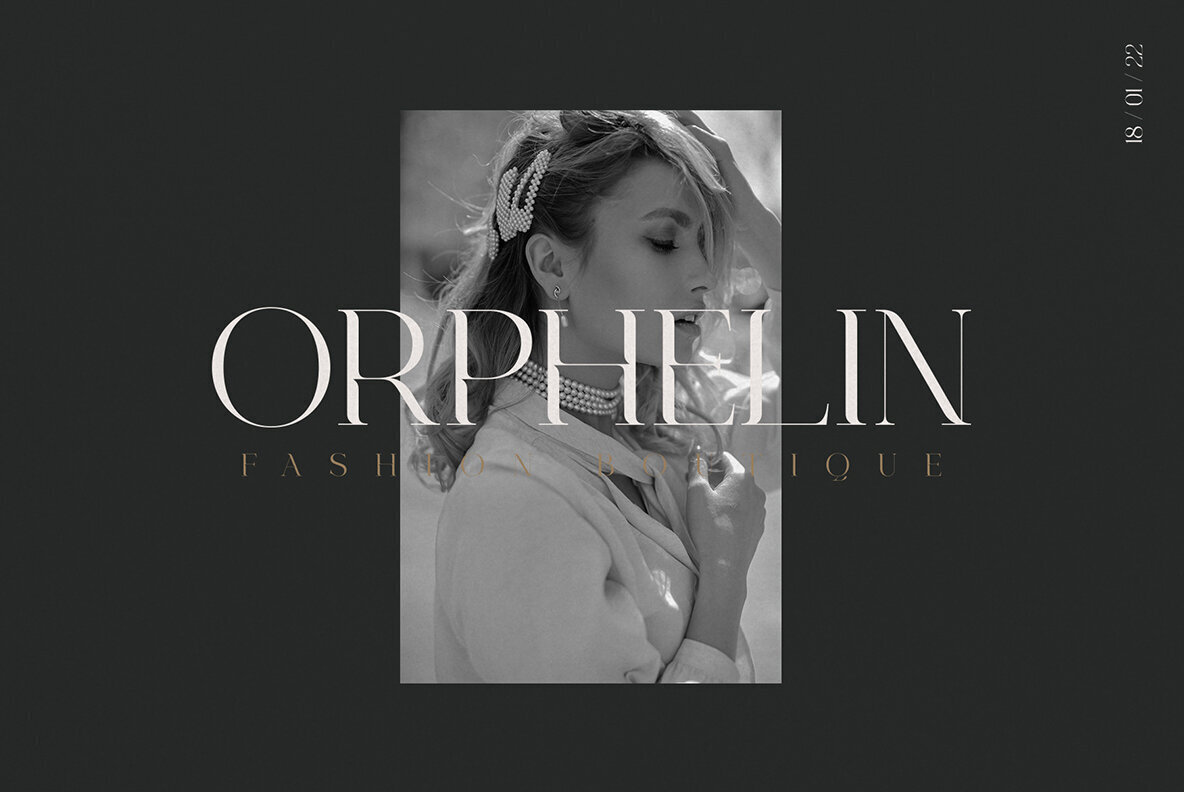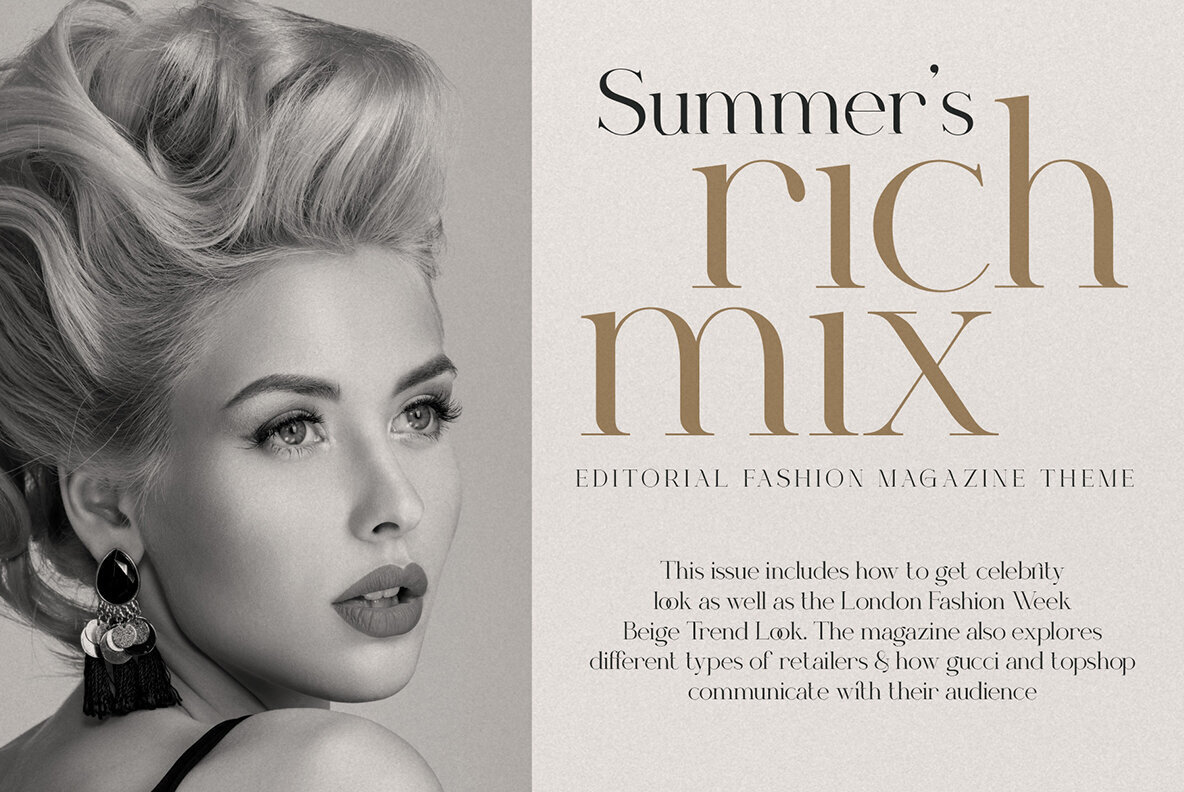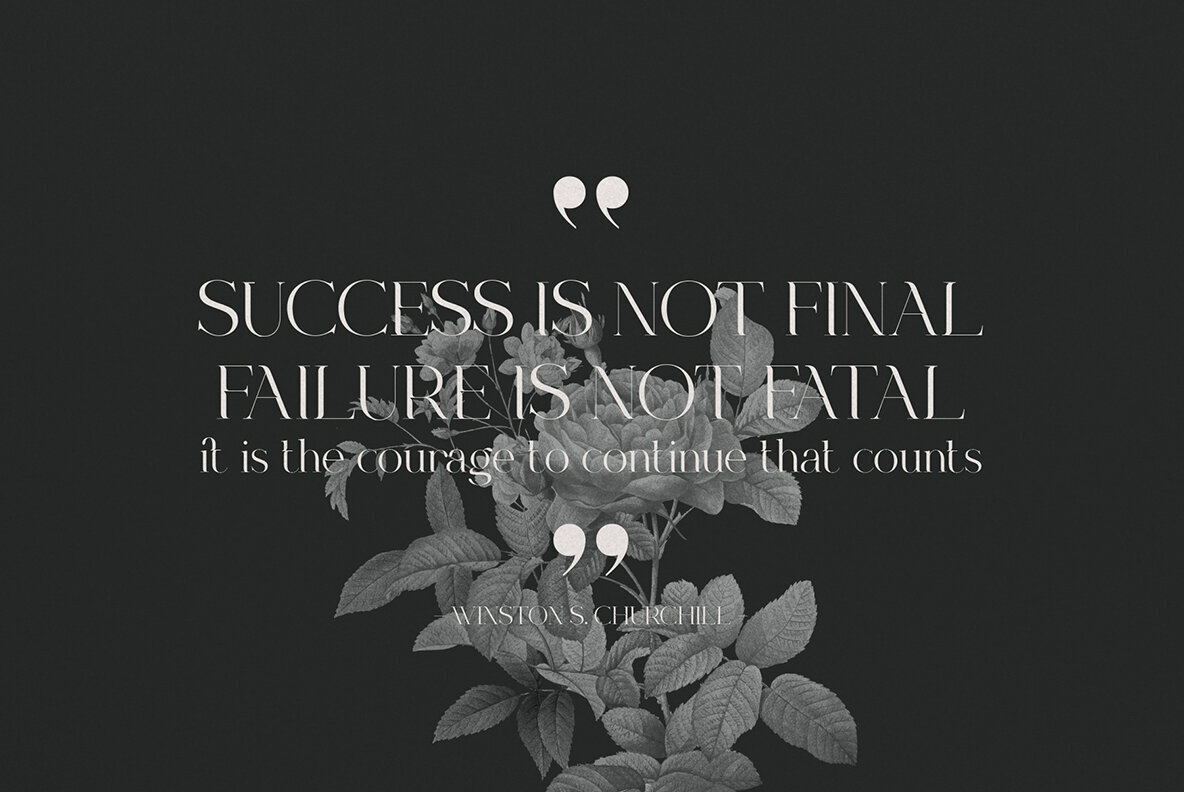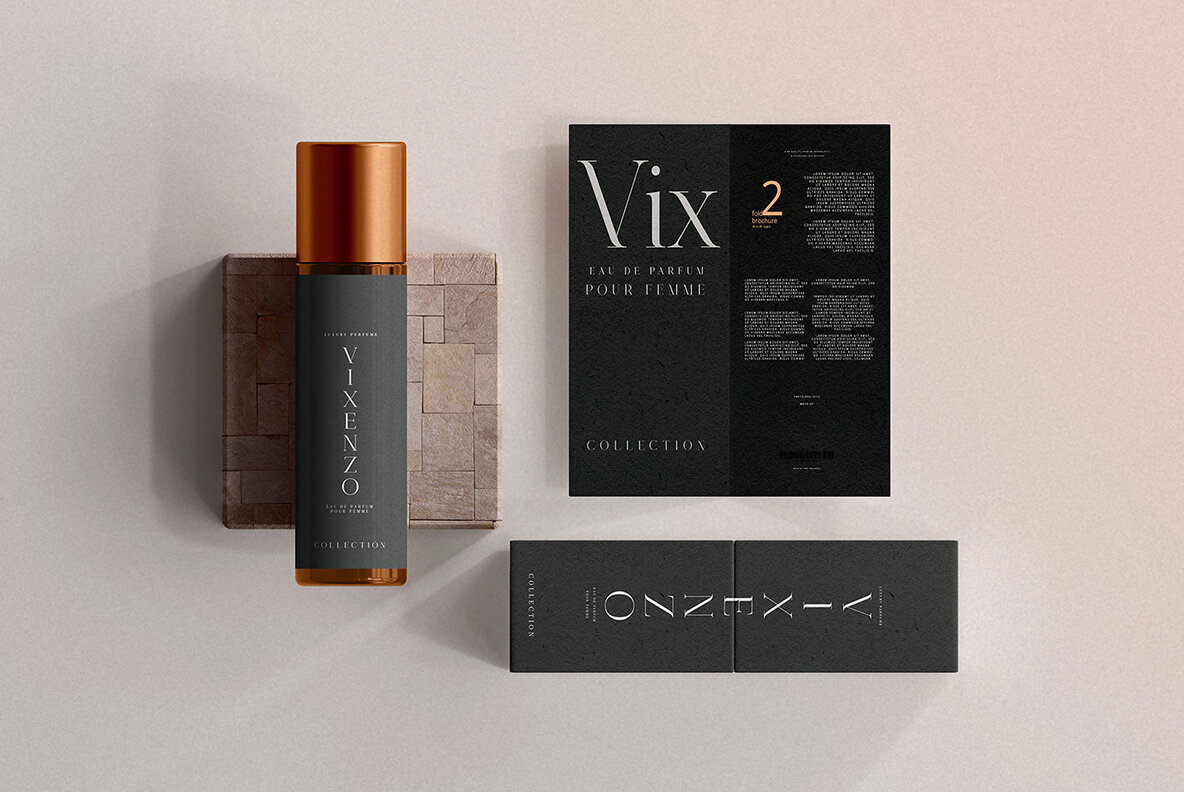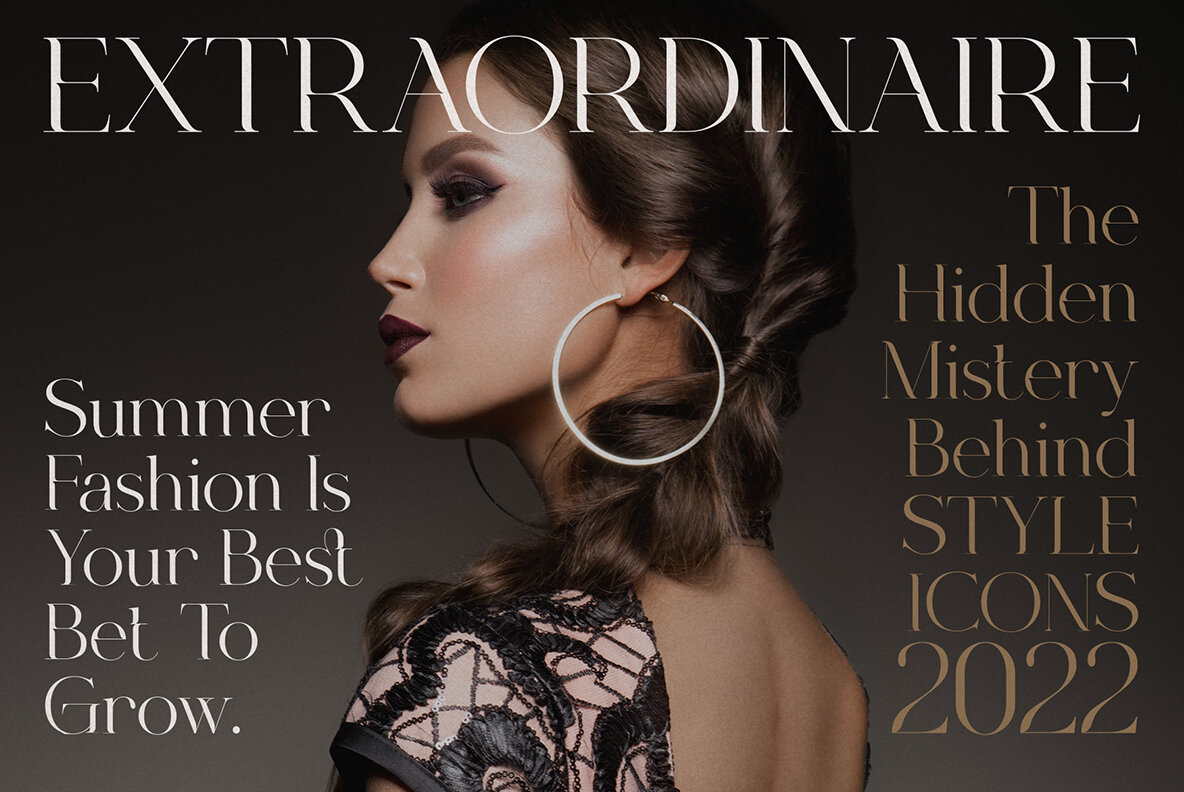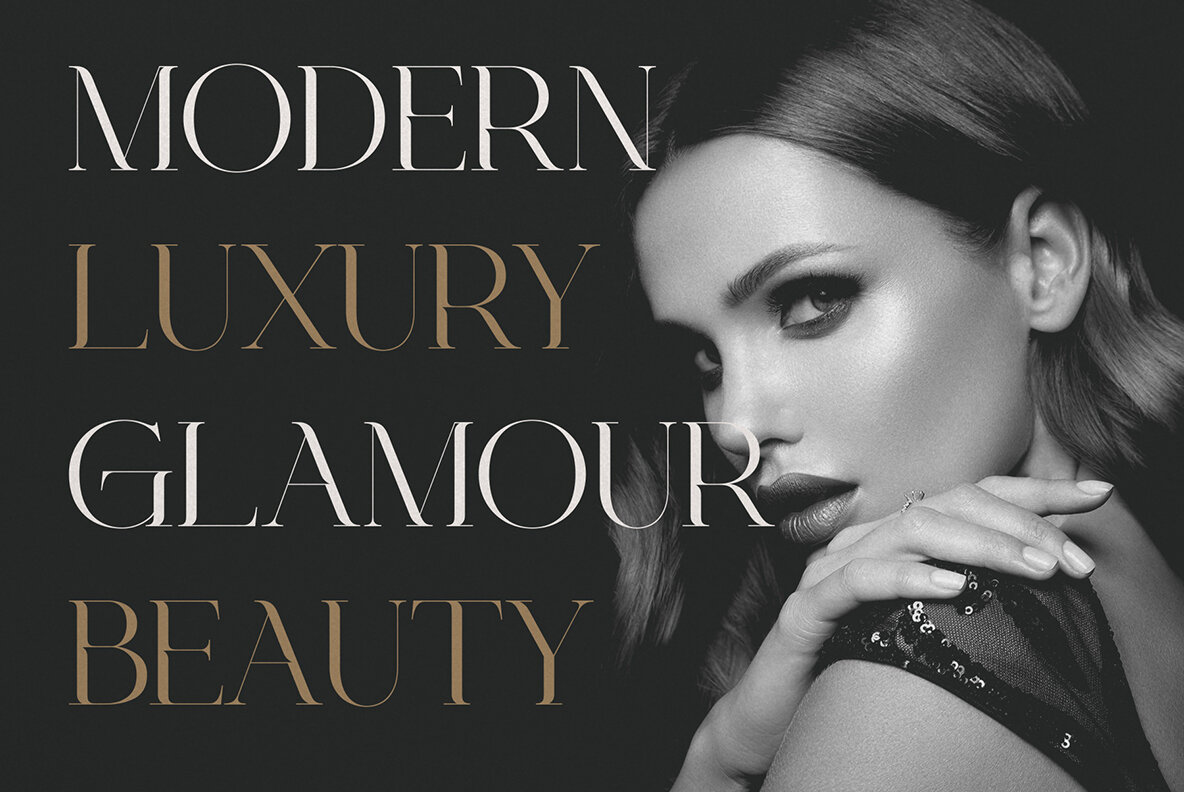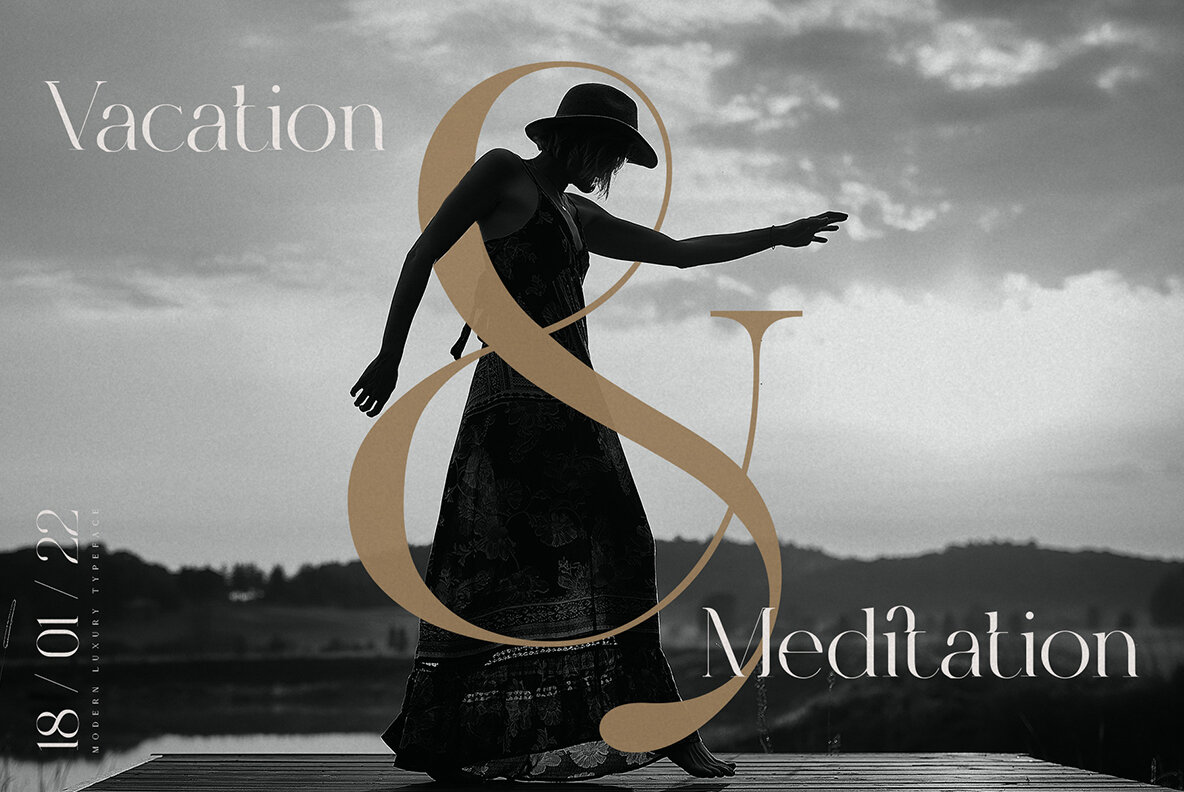
Mocktaile Typeface Font
The Mocktaile Typeface is the epitome of modern luxury, crafted to offer a sophisticated touch to your projects. Its elegant soft curves and high-contrast glyphs contribute a distinctive femininity, making it a versatile option for designers. Perfectly suited for layout design, Mocktaile adds flair to quotes and body copy alike. Its unique characteristics enhance fashion typography and logo design, providing a fresh aesthetic. For those working in diverse linguistic settings, this typeface also supports multiple languages.Mocktaile Typeface: A Modern Serif with Luxurious Appeal